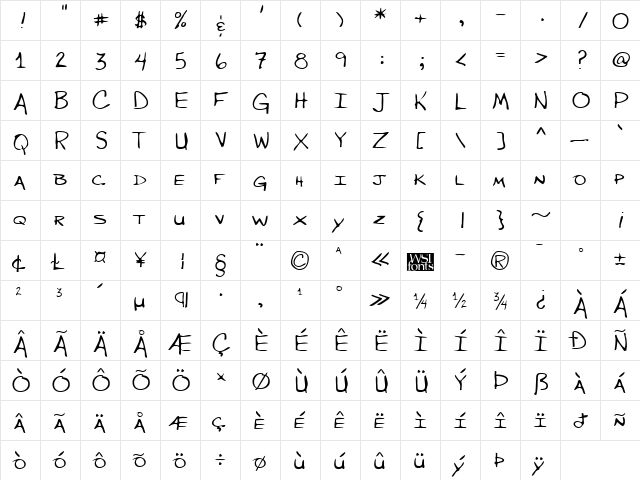
WiltonsHand Regular
Design Context for WiltonsHand Typeface
WiltonsHand flows with the natural rhythm of handwritten lettering, making it ideal for designs that call for warmth and personal expression.
Font Pairing: Combine WiltonsHand with a simple geometric sans for maximum contrast — the tension between flowing curves and clean structure is a classic typographic pairing.
Pro Tip: Use WiltonsHand for short runs of text — names, titles, or taglines. Extended body copy in script faces tires the eye quickly.